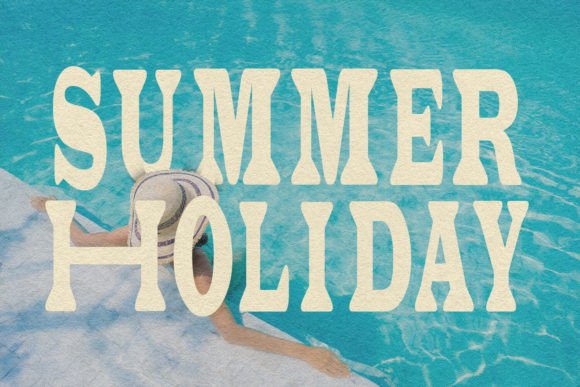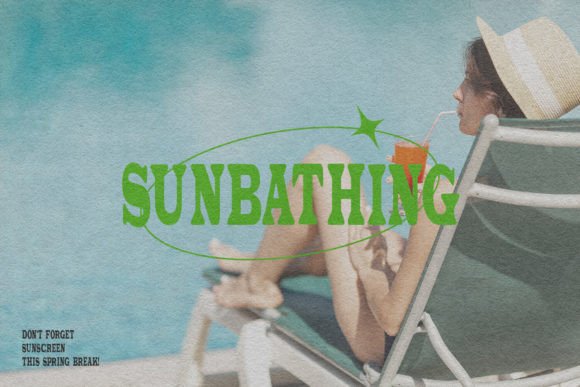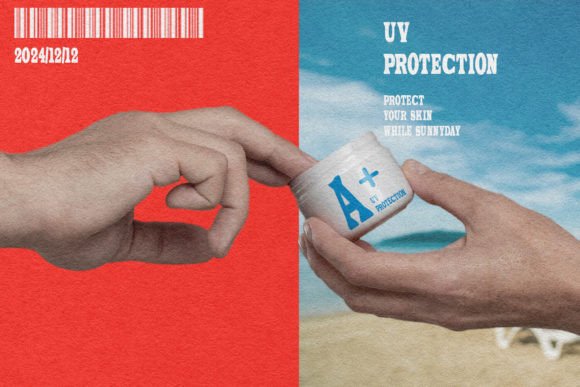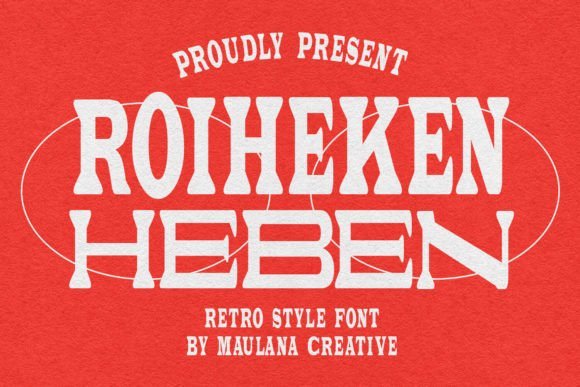
Introduction to Roiheken Heben Font
Roiheken Heben is a retro serif style font.
With medium low contrast stroke, a vintage character with a ligature and alternate This font is good for logo design, Social media, Movie Titles, book titles, short text even a long text letter, and good for your secondary text font with sans or serif.
Key Features of Roiheken Heben Font
Why Choose Roiheken Heben Font?
Roiheken Heben Font offers exceptional quality and versatility, making it a valuable addition to your design toolkit. Whether you’re creating for personal projects or commercial use, Roiheken Heben Font delivers professional results.